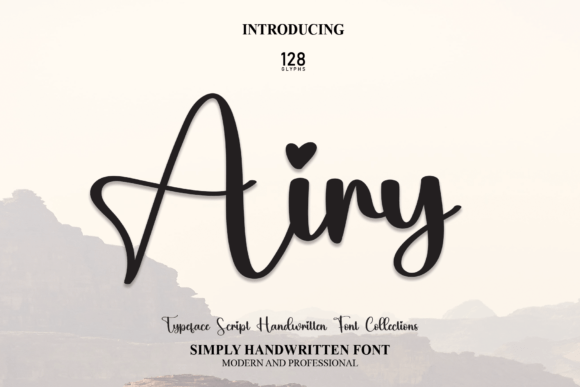
The Sweet Spot: Discovering the Charm of Airy Font
I’ll never forget the time I was working on a wedding invitation project, and my client asked for a font that was “whimsical, romantic, and playful.” I scoured the internet, trying out font after font, but nothing seemed quite right. That was until I stumbled upon Airy Font. This lovely handwritten script font has been a game-changer for me, and I’m excited to share its charm with you! 💕
So, what makes Airy Font so special? Let’s dive into the good stuff! 😊
- ✨ Sweet and playful vibe: Airy Font has a joyful, carefree feel that’s perfect for projects that need a touch of whimsy.
- ✅ Highly legible: Despite its playful nature, Airy Font is surprisingly easy to read, making it suitable for both headings and body text.
- 💕 Romantic and feminine: This font exudes a sense of romance and elegance, perfect for wedding invitations, Valentine’s Day cards, or any project that requires a touch of sweetness.
Of course, no font is perfect, and Airy Font has a few minor quirks to consider:
- 🤔 Limited character set: While Airy Font has a wide range of characters, it may not have every special character or glyph you need. Be sure to check the font’s capabilities before committing to a project.
- ⚠️ Not suitable for body text: While Airy Font is legible, it’s still a script font and may not be the best choice for lengthy blocks of text. Stick to headings, titles, or short paragraphs for the best results.
The Story Behind Airy Font
Airy Font was designed with love and care by a talented type designer who wanted to create a font that would bring joy and whimsy to creative projects. Inspired by the beauty of handwritten scripts and the playfulness of modern typography, Airy Font was born. 💫
| What is Airy Font best used for? | Airy Font is perfect for creative projects that need a touch of whimsy, romance, and playfulness, such as wedding invitations, Valentine’s Day cards, and titles or headings. |
| Is Airy Font suitable for body text? | While Airy Font is legible, it’s still a script font and may not be the best choice for lengthy blocks of text. Stick to headings, titles, or short paragraphs for the best results. |